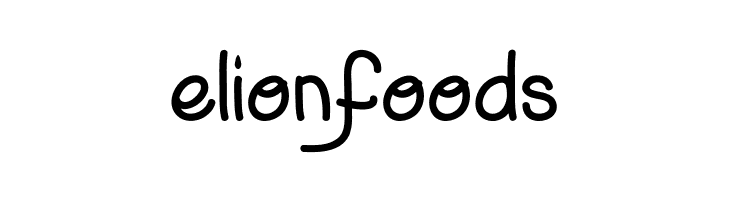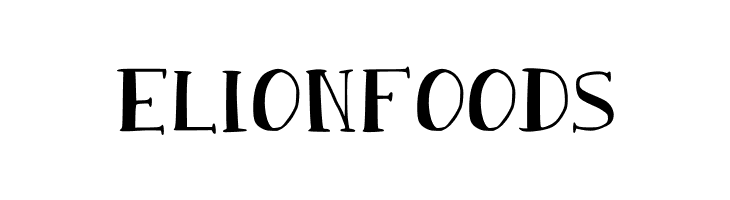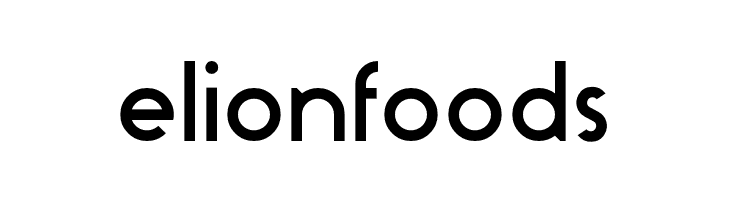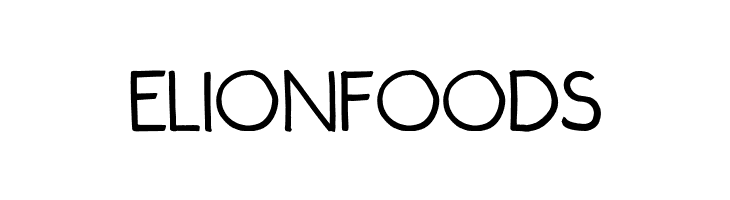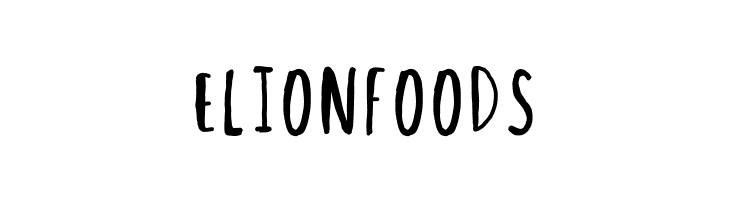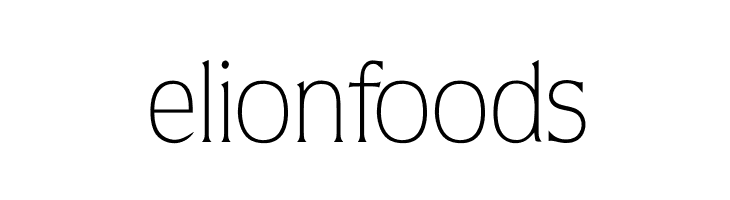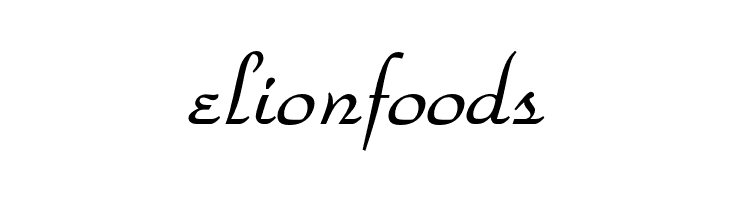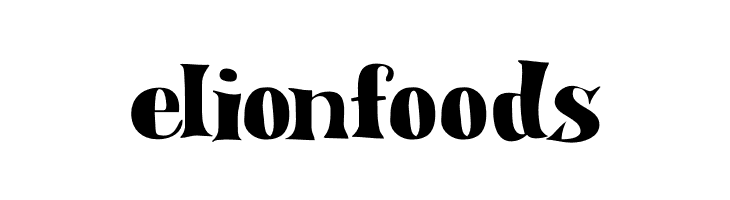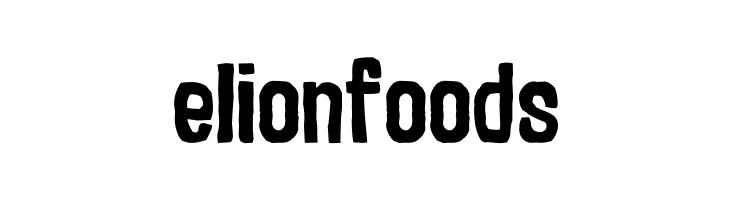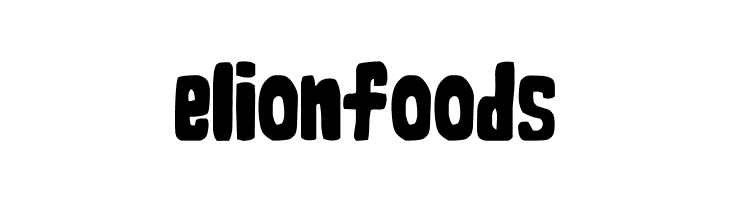
A playful, rounded font with consistent stroke width and smooth curves.
A modern serif font with sharp, angular serifs and high contrast strokes.
A playful, rounded font with a hand-drawn, informal style.
A playful, handwritten font with dynamic and irregular strokes.
A modern, light, and elegant font with a clean design.
An elegant script font with fluid, cursive strokes and a sophisticated appearance.
A bold, playful font with a hand-drawn, informal style.
A bold, rounded, and playful font with a hand-drawn appearance.